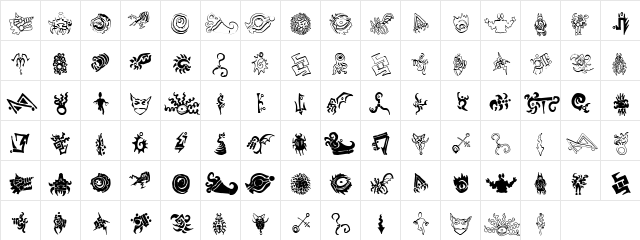
Mummy Retains Regular
Design Context for Mummy Retains Typeface
Mummy Retains is a composed and adaptable typeface that performs quietly and consistently across a wide range of design contexts.